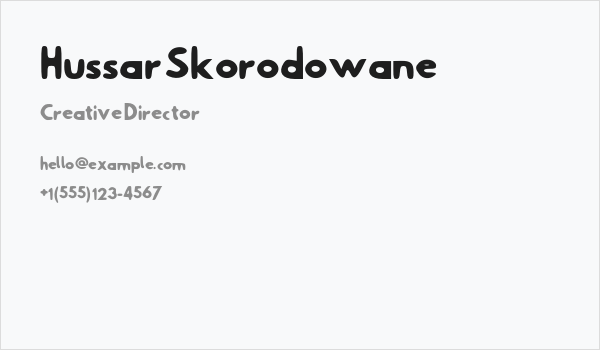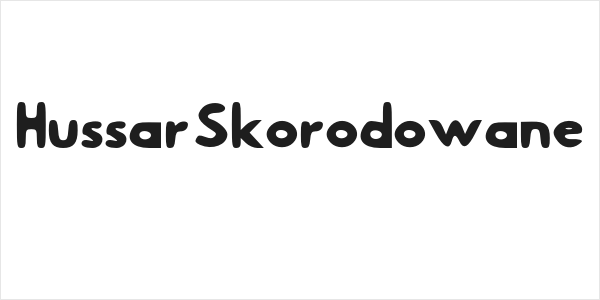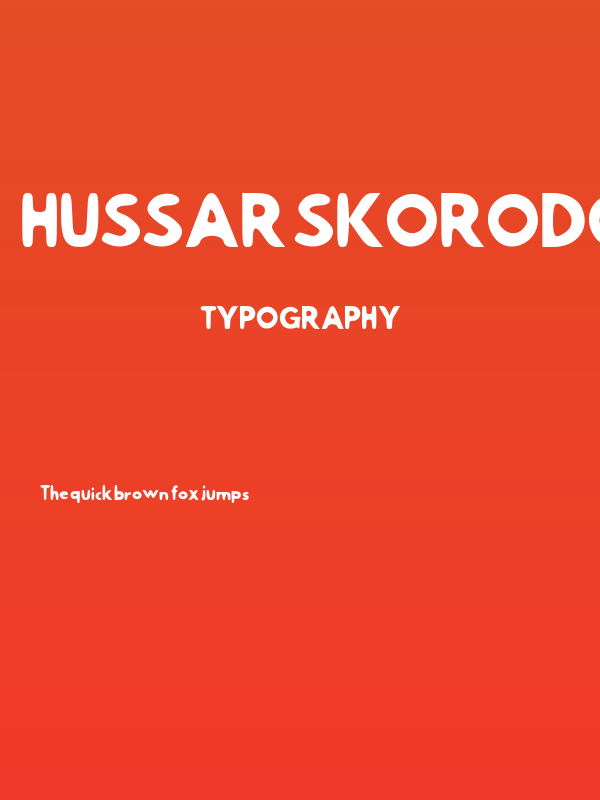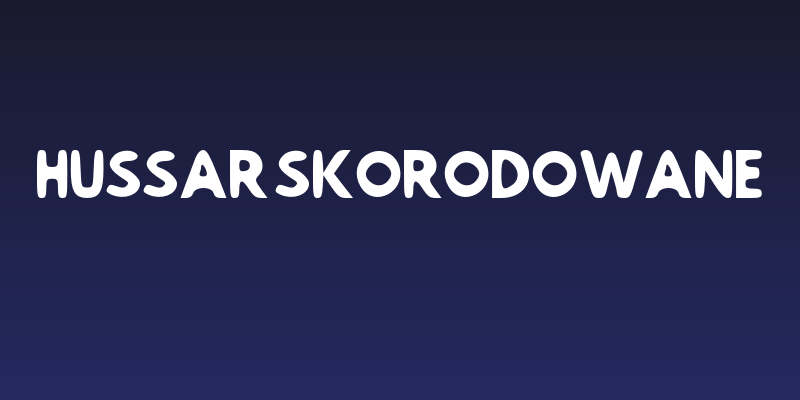
Hussar Skorodowane Font
Hussar Skorodowane Description
This font features a playful and bold style with rounded edges and a slightly irregular form, giving it a hand-drawn appearance. The uppercase letters are robust and prominent, while the lowercase letters maintain a consistent flow with a whimsical touch. The numerals are equally bold, ensuring readability and a cohesive look across different uses. Special characters are creatively designed, maintaining the font's overall playful aesthetic. This font is ideal for projects that require a fun and engaging visual element.
| Overall Style | Playful, Hand-drawn |
| Proposed Projects | Ideal for children's books, playful branding, posters, and creative advertising. |